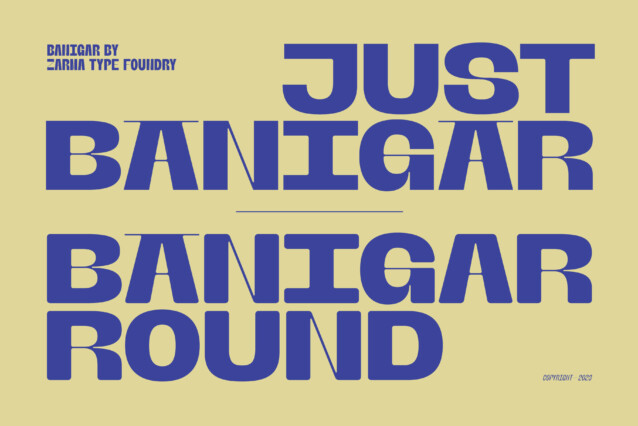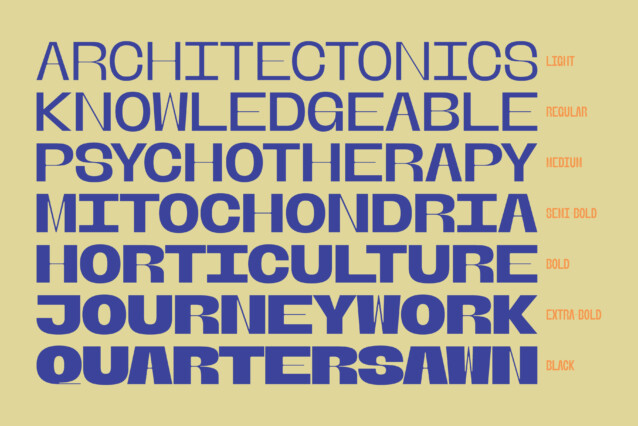
Banigar Typeface is perfect for creating designs that are both modern and confident. With consistent letter width and a high contrast between thick and thin strokes, Banigar is sure to grab your audience’s attention. Whether you’re looking to create something fresh and bold or something experimental and daring, Banigar has got you covered. Don’t settle for an ordinary font, upgrade to Banigar today!